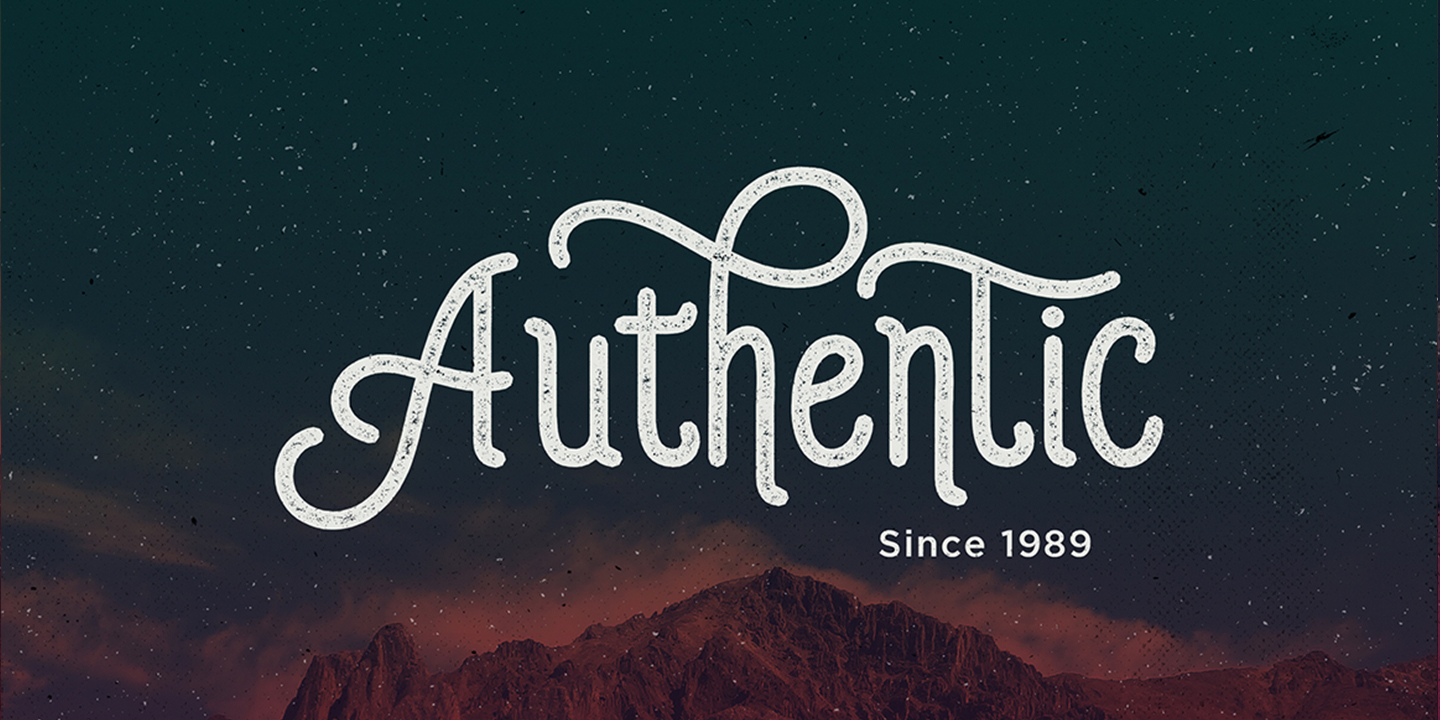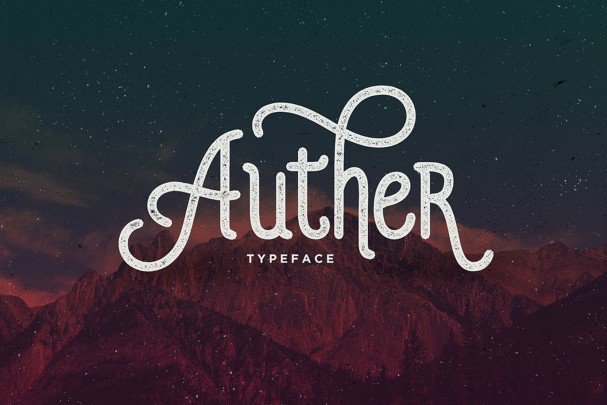
Auther Typeface Font
Auther Typeface Font falls into the class of regular fonts. This typeface is available here at no cost download and private use. It’s widely used in creative design. This font has been attractively commonplace via the usage of a pointer with a tinny brush on acrylic newspaper.
Its appearances are brilliant in darkish paint sun solar sunglasses. It is the thirsty script, and we find out it now not possible to resist because of its top-notch outstanding patterns. Regrettably, you could maximum, in fact, use it in adobe photoshop and illustrator. Auther Typeface Font Free This font has a stylish look and touches with its threesome of outlines in respectively letter introduction.
Use it on not unusual to big sizes for headings, works of artwork and hundreds extra. Further, gloss and bloom font is a princess font at an identical time as you don’t want a training consultation this shape of font then you definately virtually really need to use the unfastened font. This informal symmetrical typeface through roman style designer includes every day, ambitious, italics and set of numbers. It expressions grand used on the artwork.